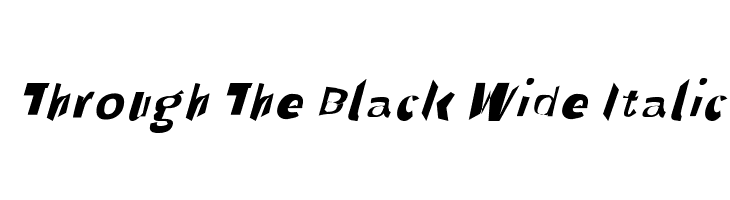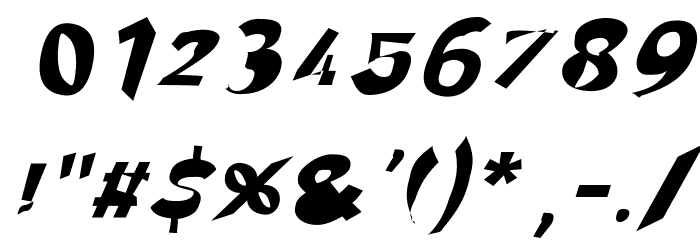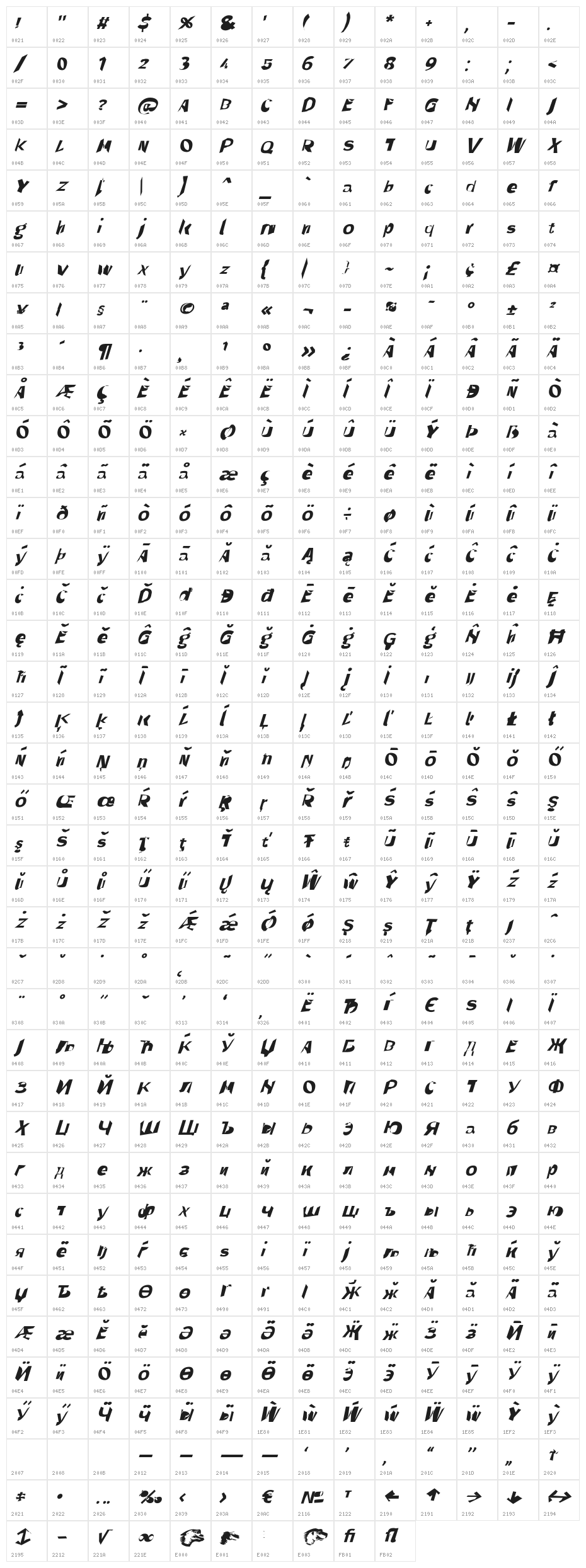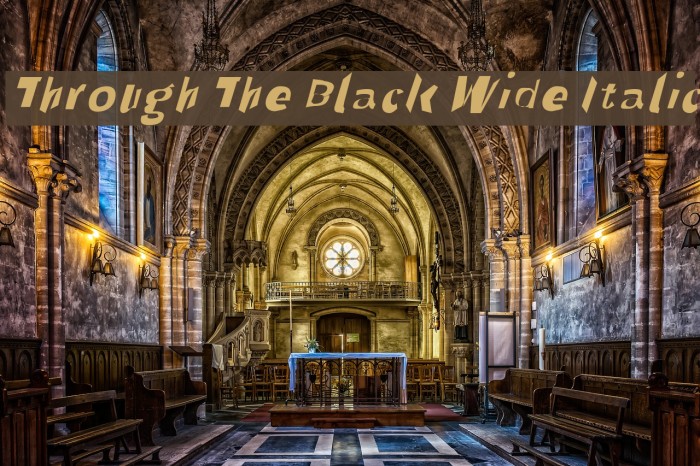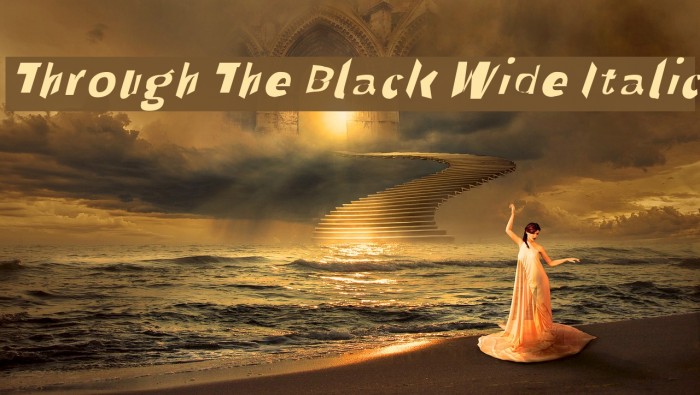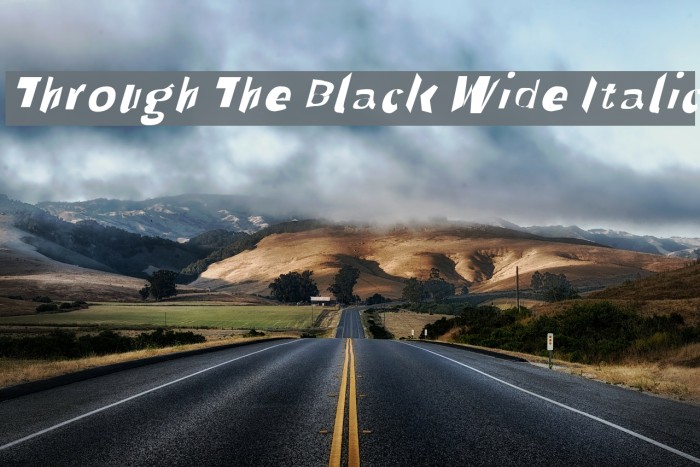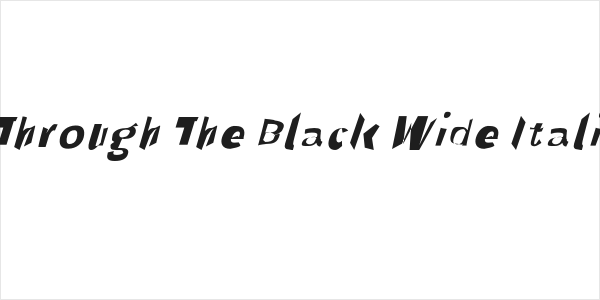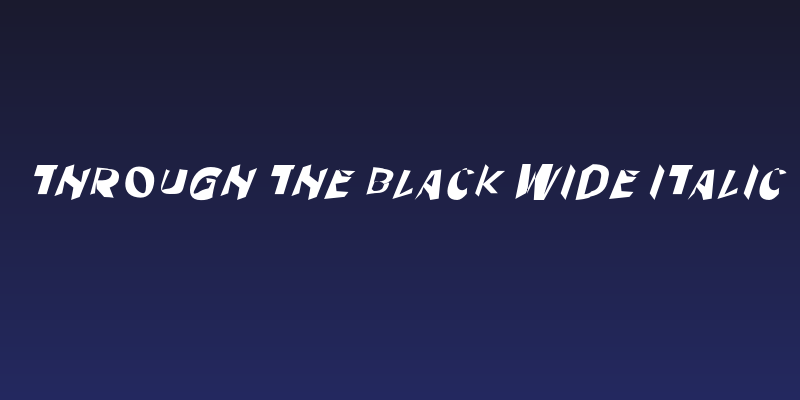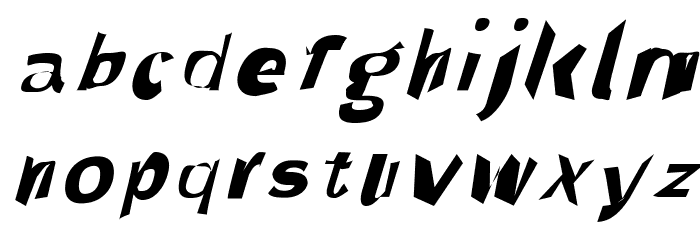
Through The Black Wide Italic Font
Through The Black Wide Italic Description
This font features a bold and dynamic style with a strong italic slant, giving it a sense of movement and energy. The characters are wide and have a distinctive, angular design that creates a striking visual impact. The uppercase letters are particularly bold, with sharp edges and a modern flair. The lowercase letters maintain the same angular style, ensuring consistency throughout the typeface. The numbers and special characters follow the same design principles, making them easily recognizable and visually cohesive. This font's unique style makes it suitable for projects that require a bold and eye-catching typeface.
| Proposed Projects | Ideal for posters, branding, headlines, and any design needing a bold, modern touch. |